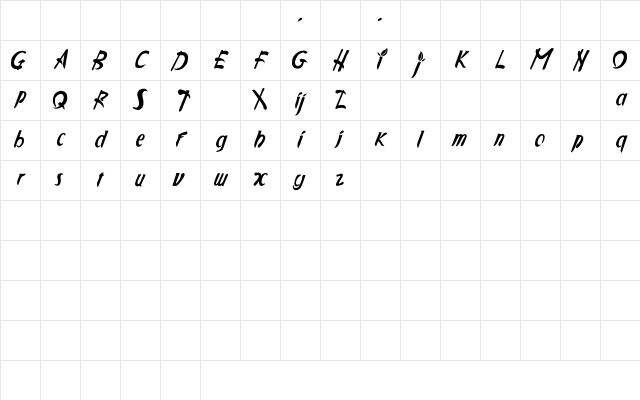
Applejuiced Original Free Font
Applejuiced Original
Style: Original
Applejuiced Family
Applejuiced Original
Design Context for Applejuiced
Applejuiced is a composed and adaptable typeface that performs quietly and consistently across a wide range of design contexts.